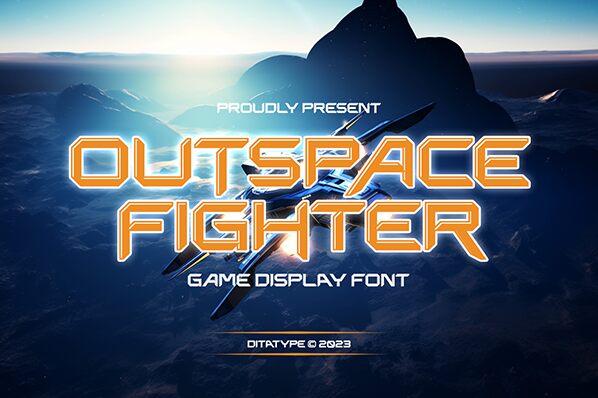
Outspace Fighter font is a free techno display typeface designed by Ditatype. An expanded width differentiates the font and makes it more noticeable than most typefaces. The calm futuristic appearance allows this angular structured geometric font to steal all attention when used in professional or non-professional environments.
Use Outspace Fighter for game interfaces, mobile applications, online events announcements, or YouTube thumbnails. Furthermore, this free font works in printed ads, logos, book covers and titles as well as movie titles, eBooks covers, stickers etc.